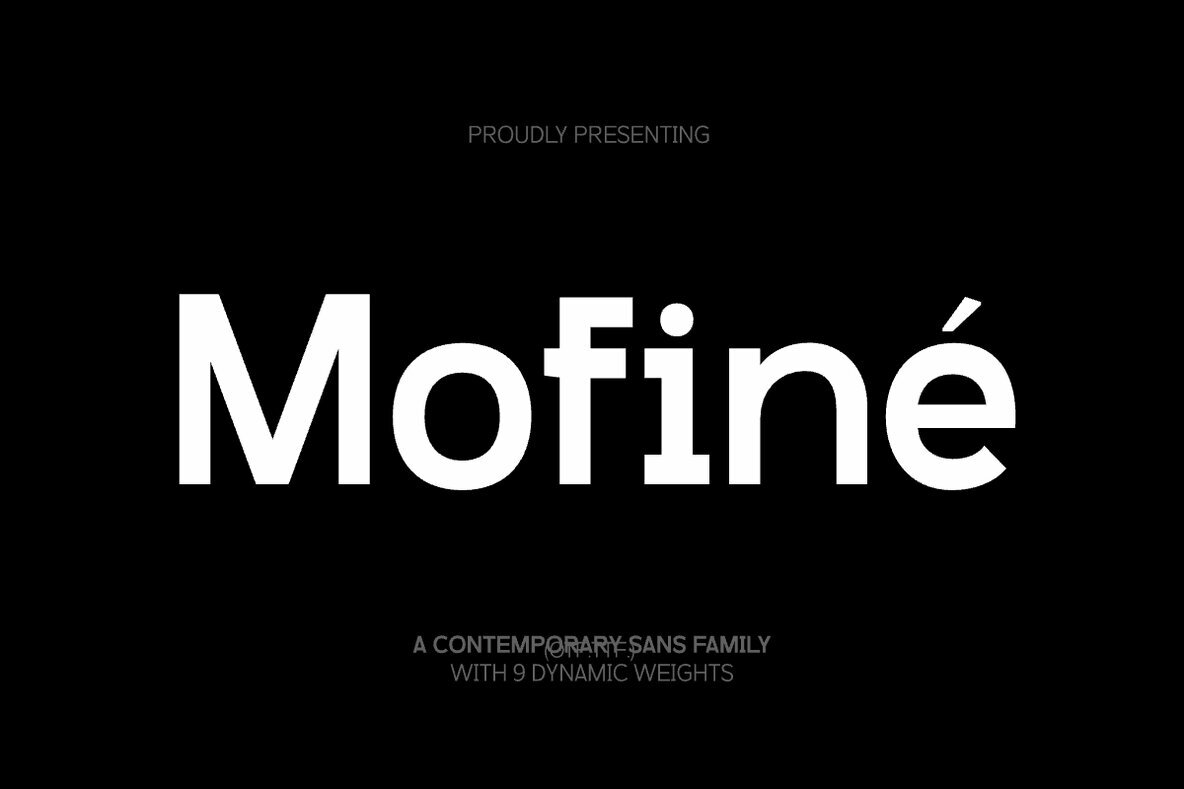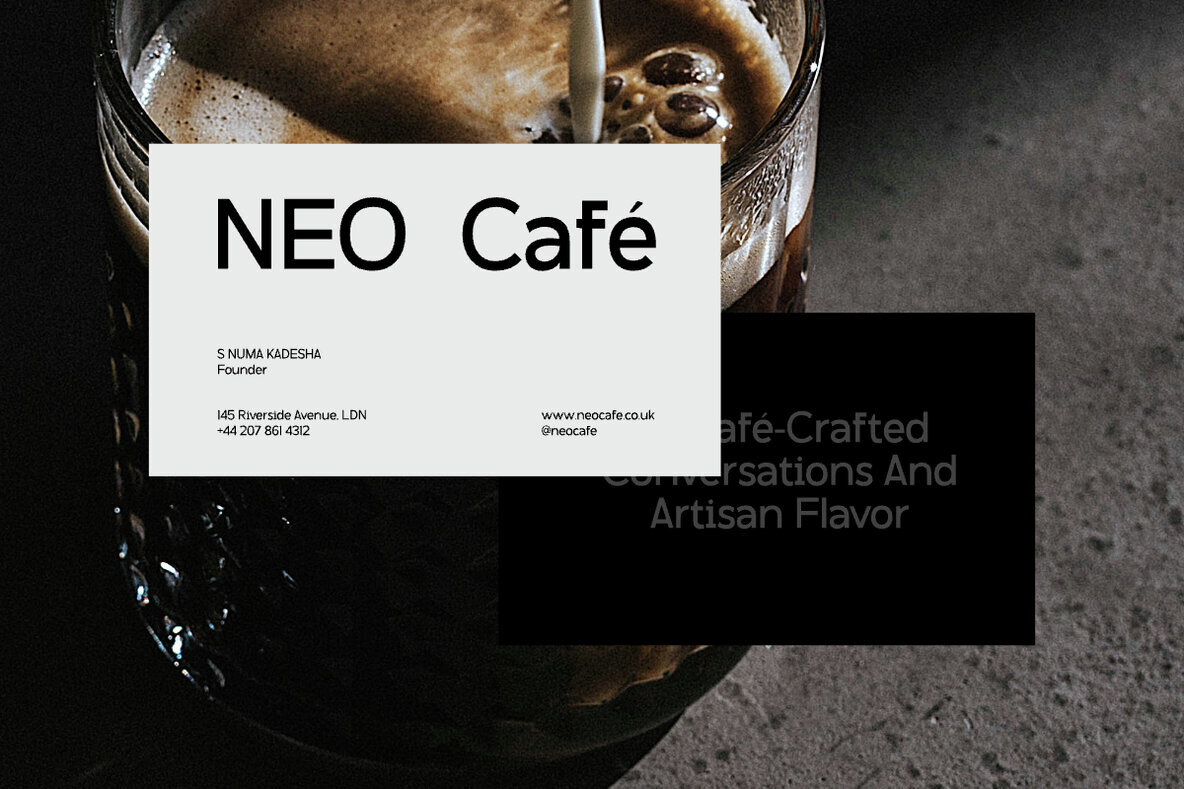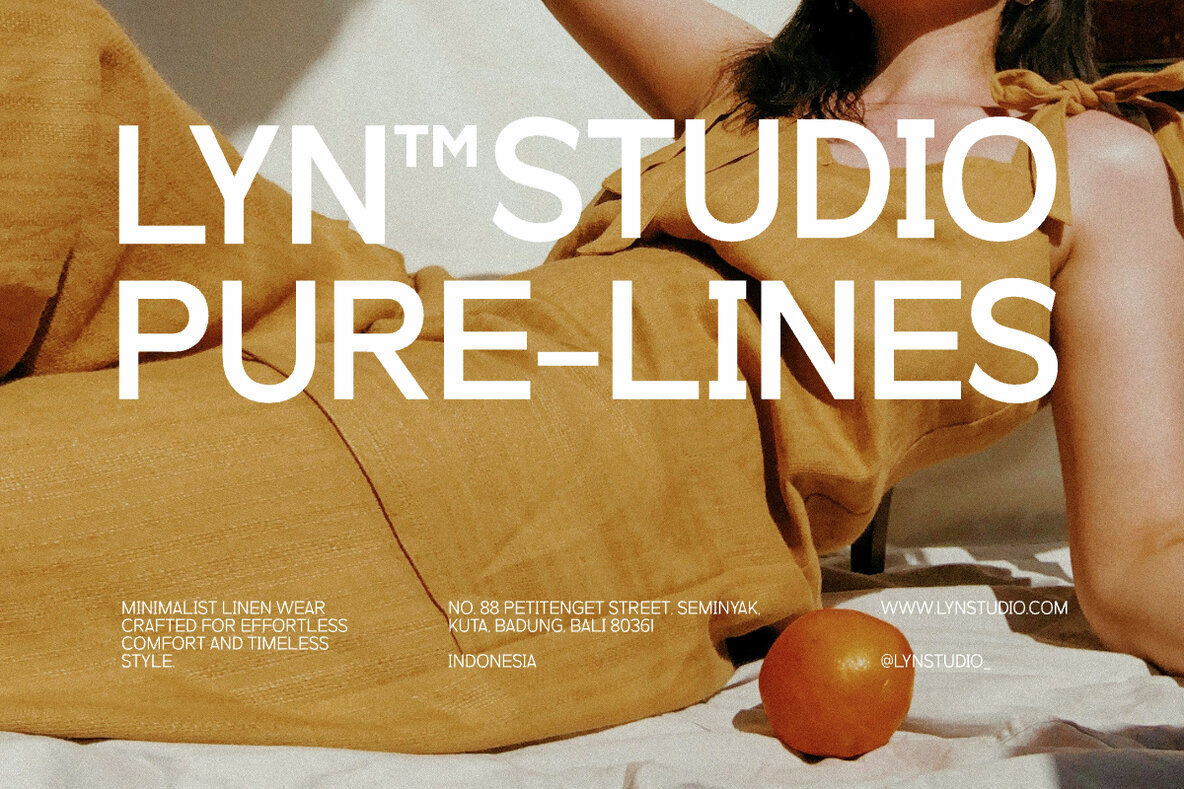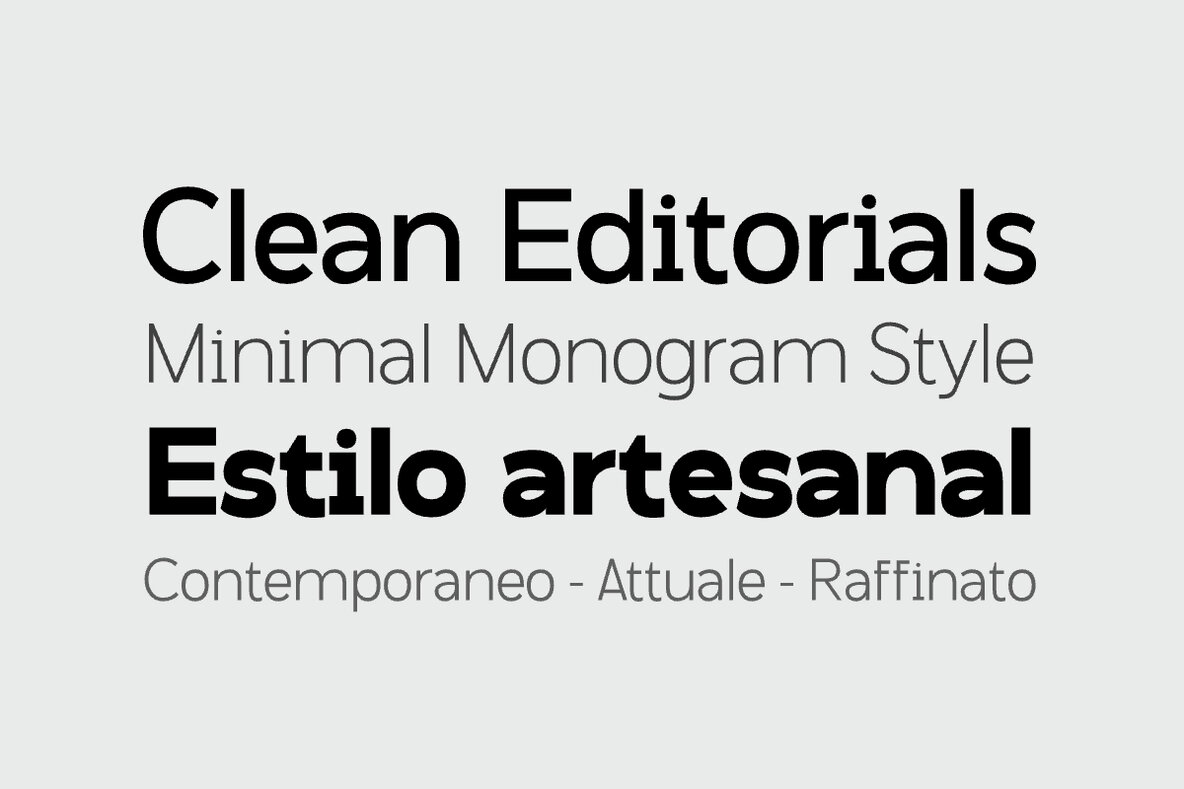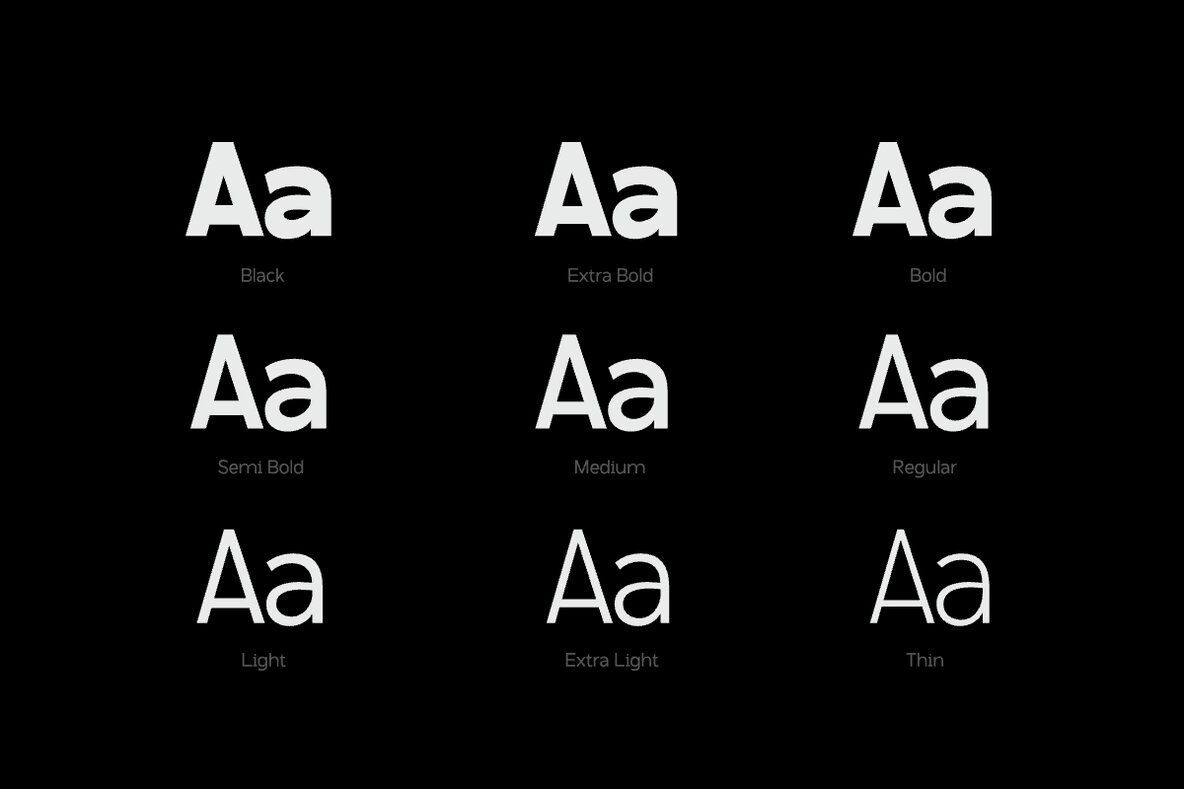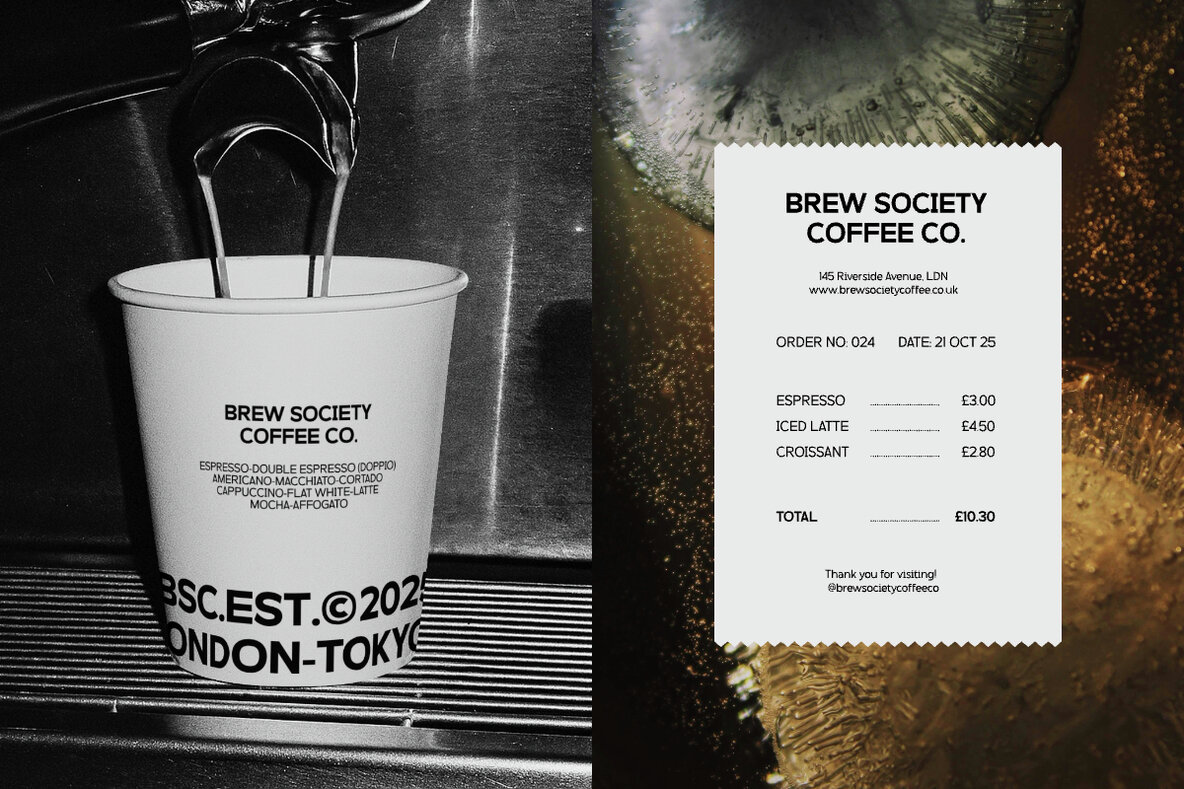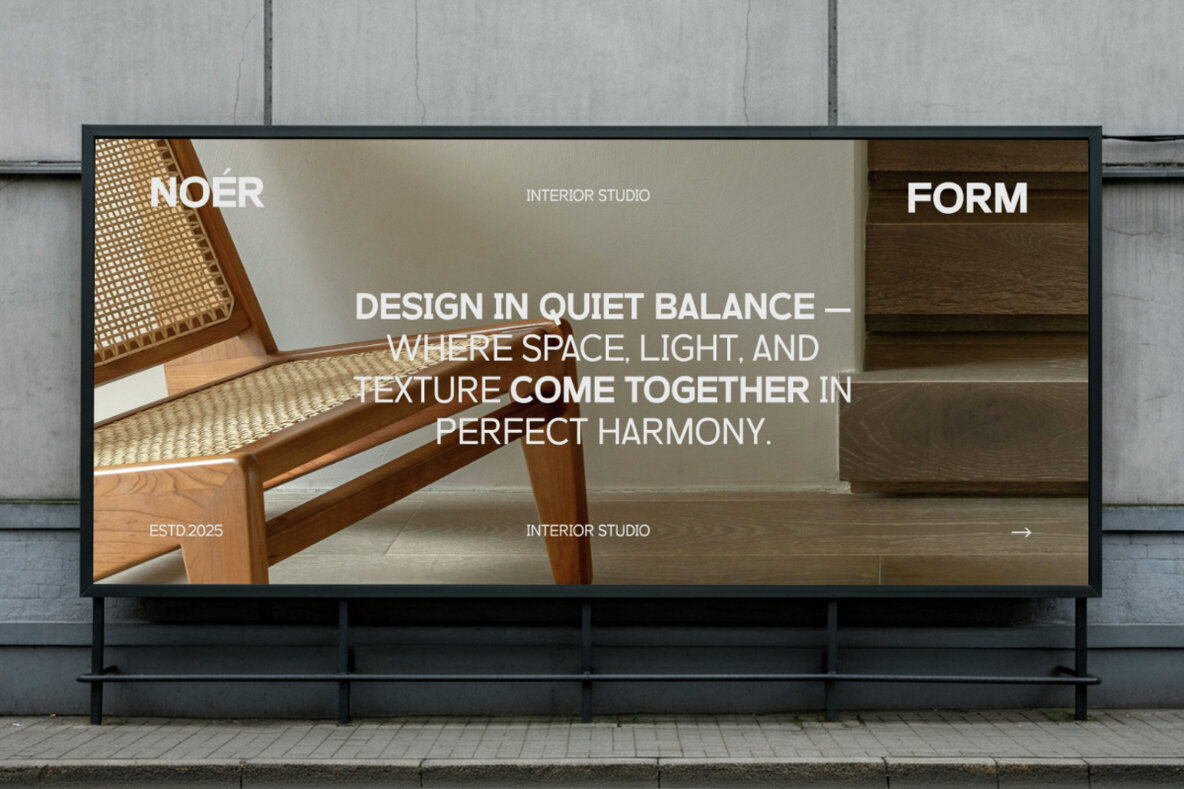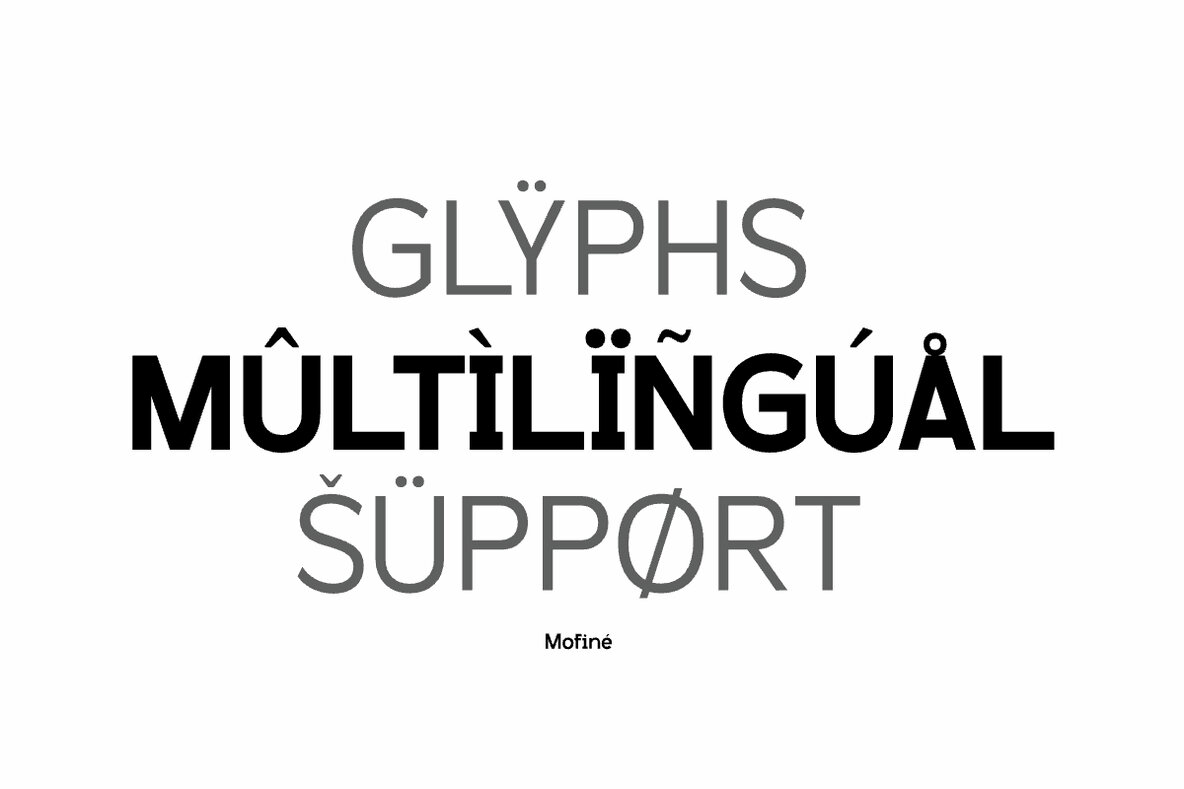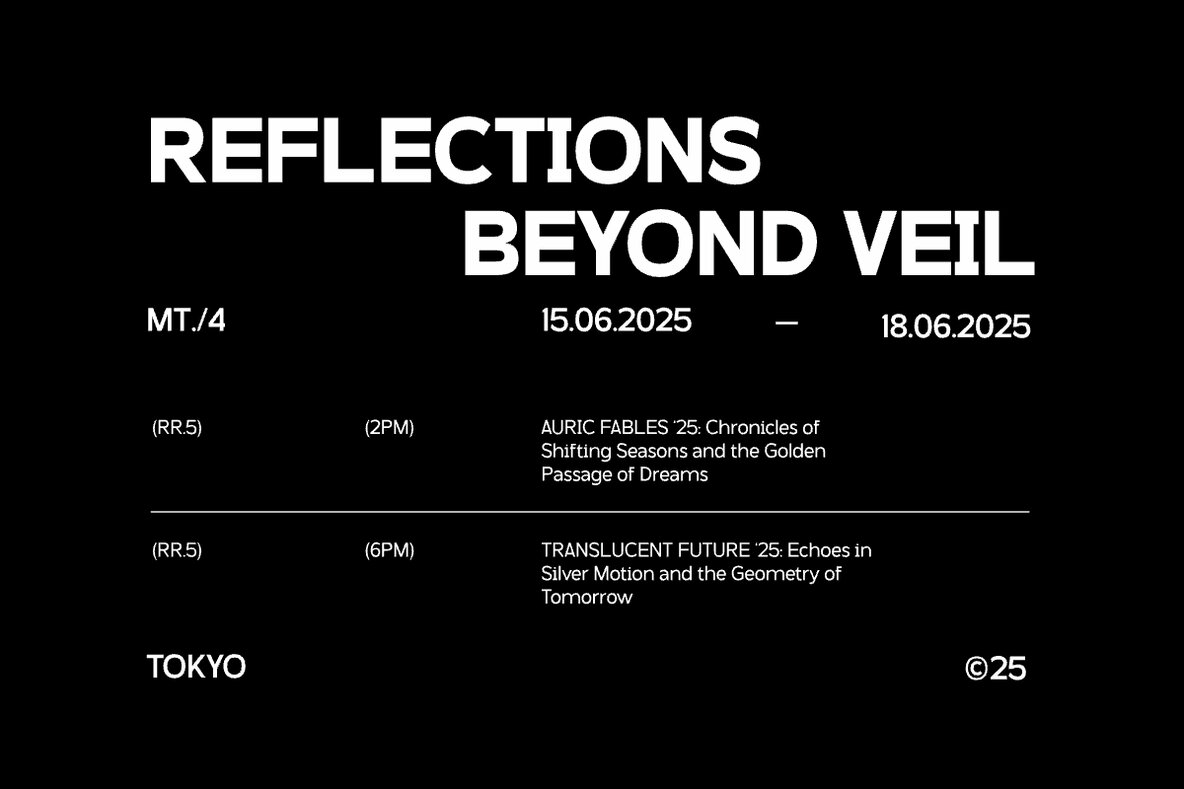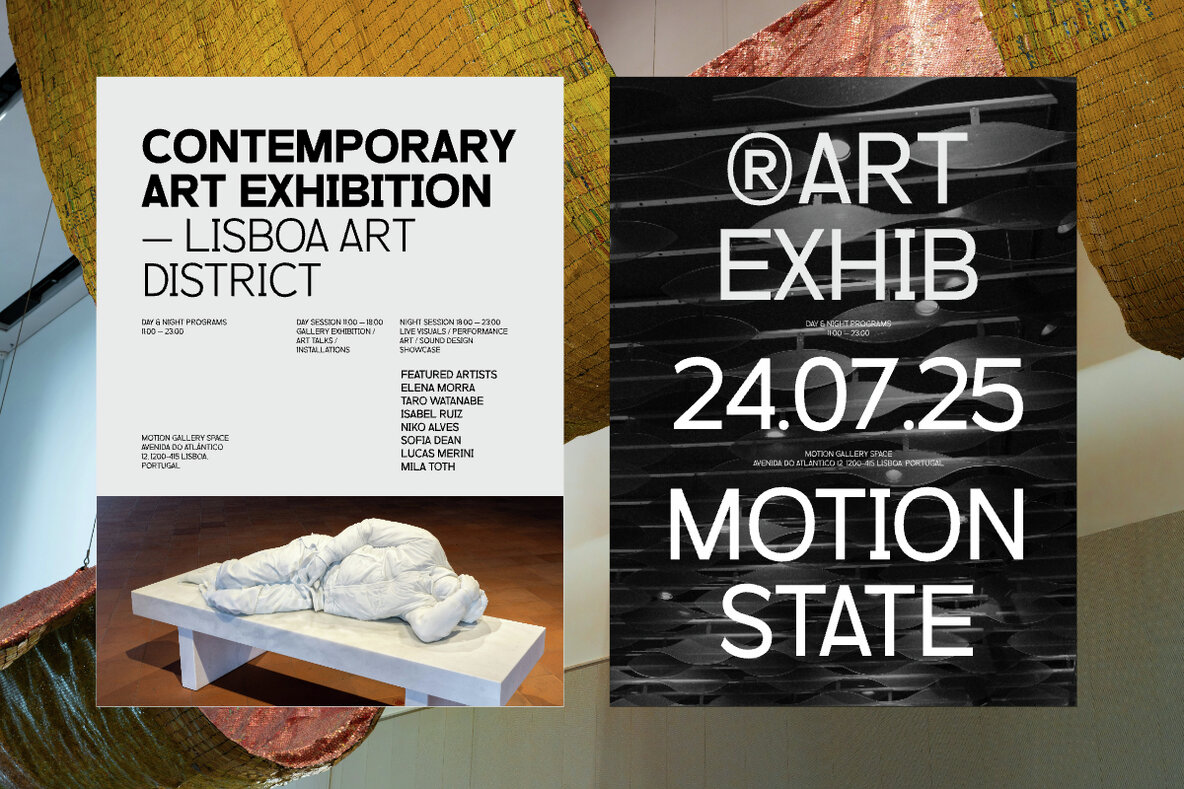
Mofine Font
Mofiné blends clean geometry with subtle human touches, achieving an aesthetic that is both precise and inviting. Whether for commanding headlines or clear user interfaces, its range delivers seamless harmony across digital and print mediums.Mofiné: The Perfect Balance of Sharpness and Warmth